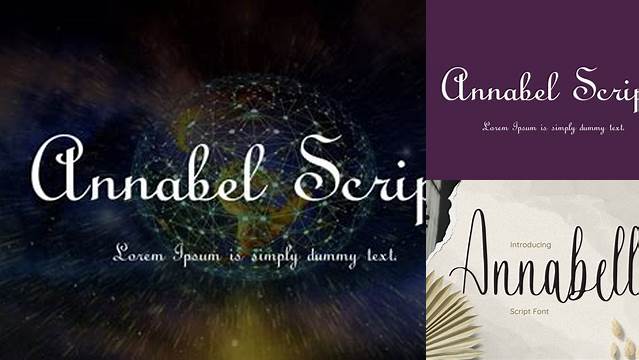
Annabel script font is a beautiful and elegant typeface that's perfect for a wide range of design projects. And the best part? You can find an annabel script font free download! Whether you're a seasoned designer or just starting out, this font can add a touch of sophistication and charm to your work. From crafting wedding invitations to creating stunning logos, the possibilities are endless. In this comprehensive guide, we'll dive deep into everything you need to know about the Annabel script font, including where to download it, how to use it, and some inspiring design ideas to get your creative juices flowing. So, buckle up, guys, because we're about to embark on a font-filled adventure!
Annabel Script Font: A Closer Look at Its Charm
Okay, so what makes the Annabel script font so special? Well, for starters, it's all about that elegant and flowing script style. Think of it as the font equivalent of a handwritten love letter – full of personality and a touch of romance. The graceful curves and subtle flourishes of the Annabel script font add a touch of class and sophistication to any design. It's a versatile font that works well in both digital and print formats. You can use it for everything from personal projects to professional branding. One of the things I really appreciate about this font is its readability. Even though it's a script font, it's designed to be easy on the eyes. This is crucial for any font you plan to use for body text or headlines. You don't want your audience squinting to decipher what you're trying to say! The designer has clearly put a lot of thought into ensuring that each letter connects seamlessly, creating a harmonious and visually appealing aesthetic. Imagine this font on a wedding invitation. It will be awesome, right? The letters seem to dance across the page, and your guests will instantly get a sense of the special occasion. This font is not just a typeface; it is a statement. It's a way of saying, "I care about details, and I appreciate beauty." With its elegant sweeps and delicate details, the Annabel script font has the power to instantly elevate any project from ordinary to extraordinary. The beauty of the font also lies in its adaptability. It's perfect for a wide array of design applications, from creating beautiful greeting cards and personalized stationery to designing sophisticated logos. Whether you're a graphic designer, a small business owner, or a hobbyist, this font is a must-have in your font library. It will serve as a great weapon of choice.
Characteristics and Features of Annabel Script
When you're on the hunt for an Annabel script font free download, it's essential to understand what makes this font tick. Let's break down its key characteristics and features, so you know exactly what you're getting. First off, the most obvious feature is the script style itself. The flowing, interconnected letters are the defining characteristic of the Annabel script font. This creates a sense of elegance, smoothness, and sophistication that sets it apart from more traditional fonts. The font typically boasts a high level of legibility, which is really important. You want people to be able to easily read your message, even when using a decorative font. Pay attention to the details! The Annabel script font often includes a range of stylistic alternates and ligatures. These are fancy terms for different variations of letters and letter combinations that can add extra flair and personality to your text. The designer might provide different versions of the 'a' or 'g' characters to give you more options. Many of these fonts also come with extensive language support, so they usually include characters for a wide range of languages. This is awesome if you're working on projects that need to reach a global audience. This feature ensures that you can use the font without worrying about missing characters or strange-looking symbols. The font is designed to be versatile! It looks great in a variety of contexts, from wedding invitations and greeting cards to logos and branding materials. It’s all about the context! The ability to be used in so many applications is what makes the font so popular. Annabel script fonts often come with different weights and styles. The font can be used in multiple sizes, which can be used to highlight important information and create visual contrast. It's all about balance, guys.